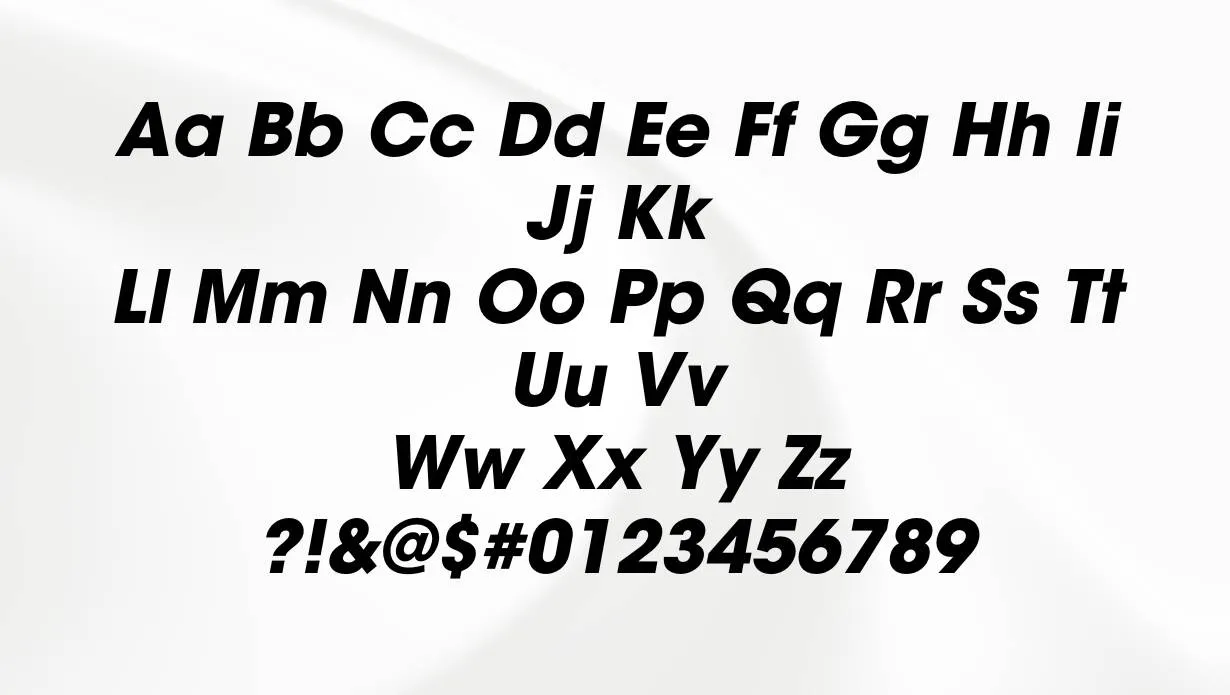
The Nier Automata Font is a font with a futuristic and sleek design, inspired by the popular video game of the same name. Featuring geometric shapes and sharp edges, it’s ideal for sci-fi and tech-related design projects.
You can easily pair it with Source Serif Pro Font. This font effectively captures the essence of a high-tech, dystopian future and is commonly used in gaming graphics, movie posters, and digital interfaces, giving designs a modern and cutting-edge appearance.
| Name | Nier Automata Font |
| Designer | Edward Benguiat |